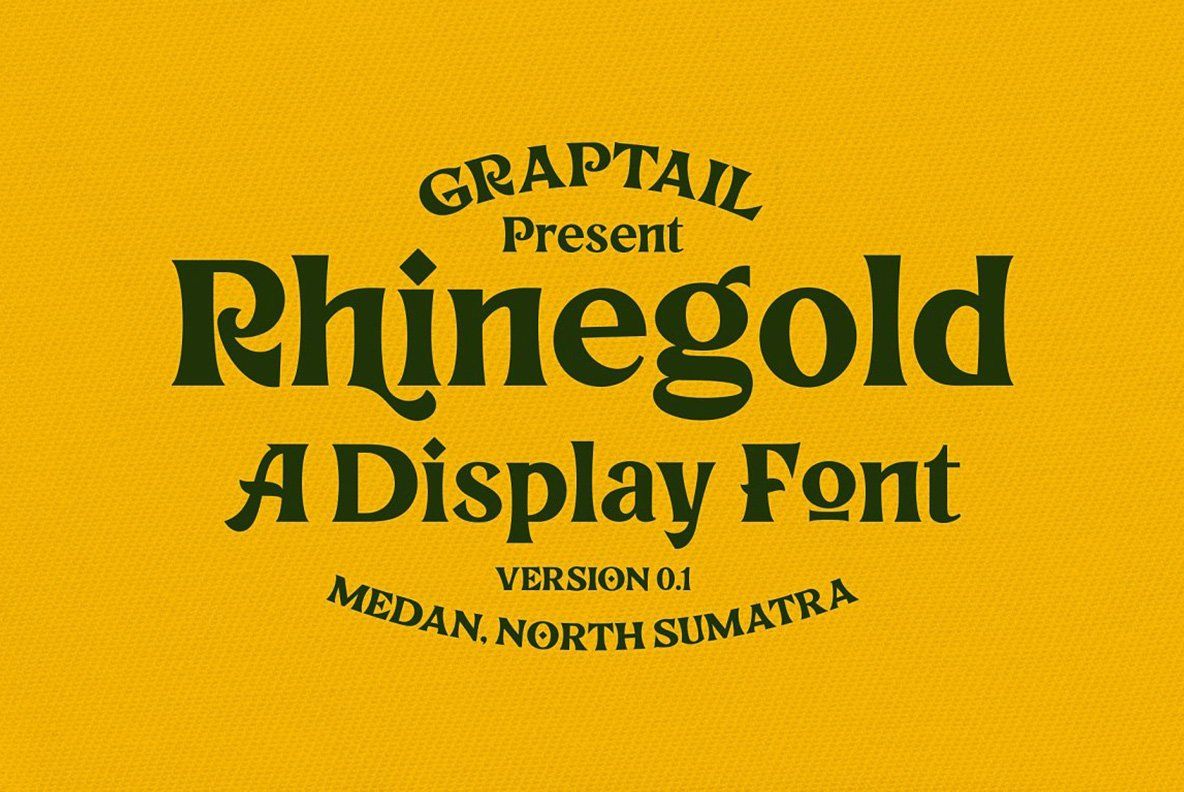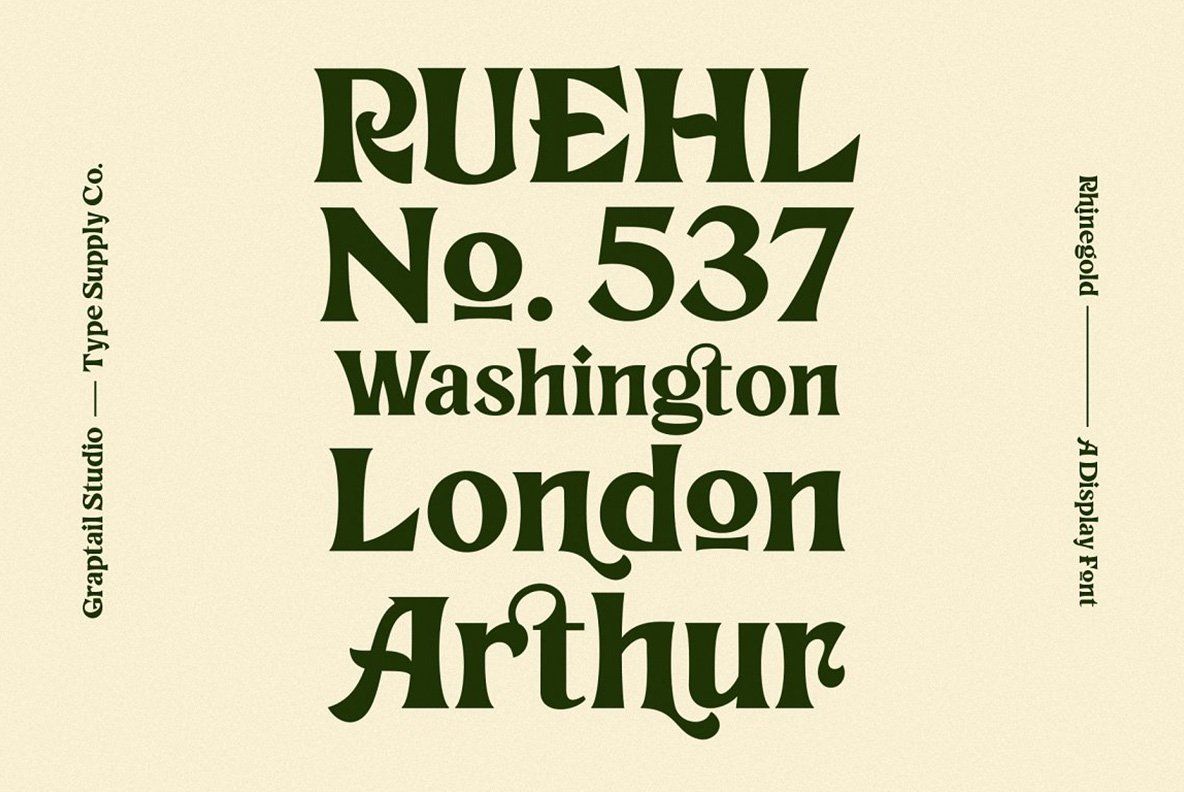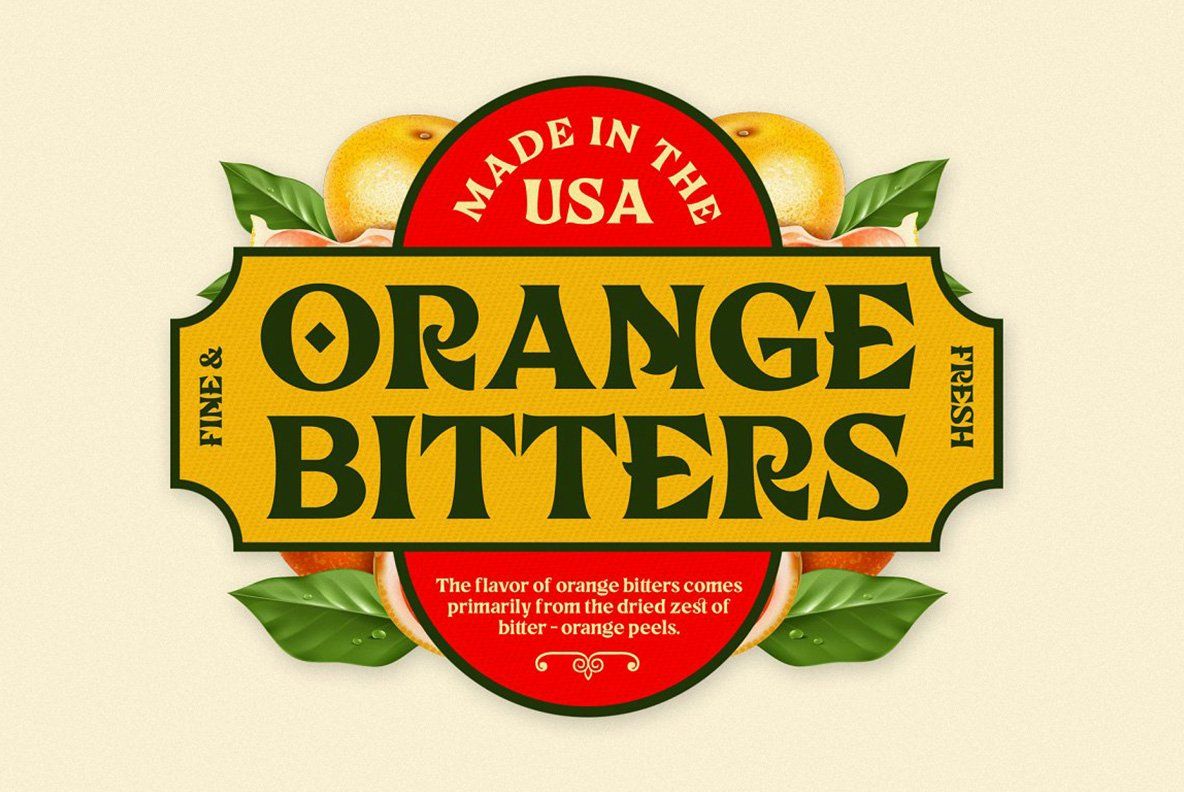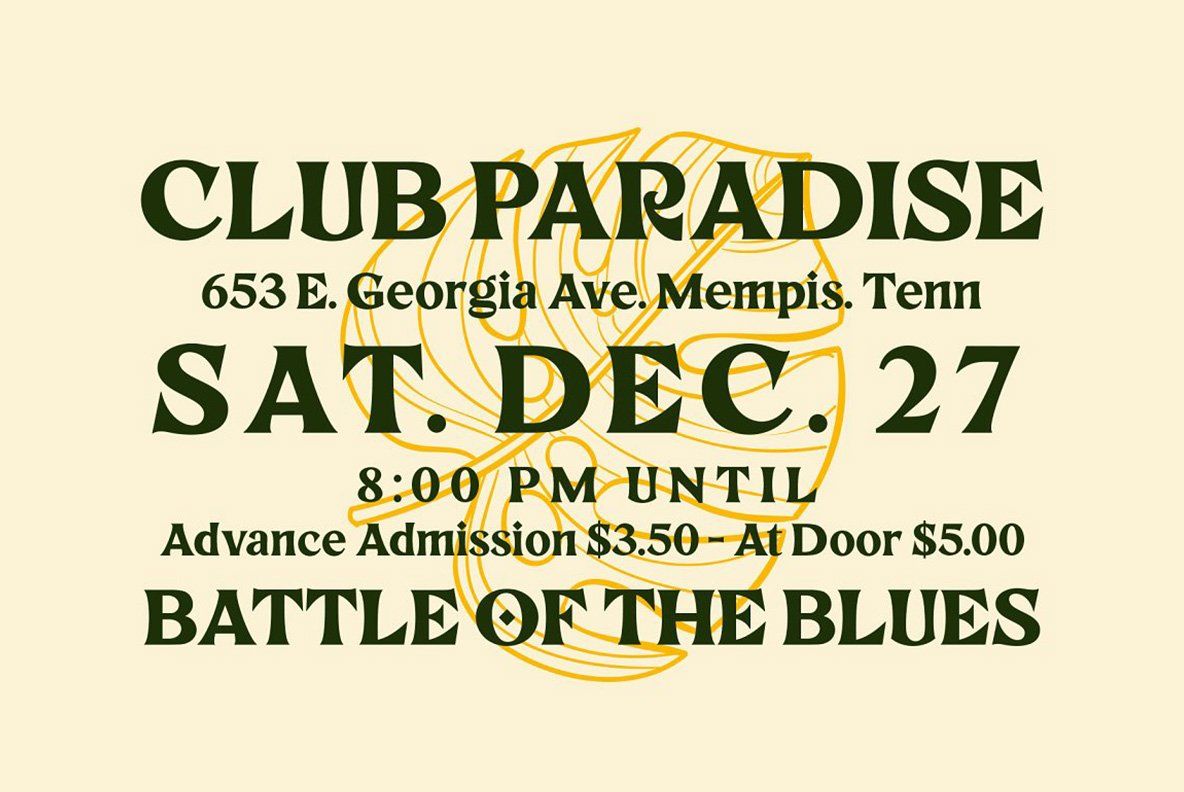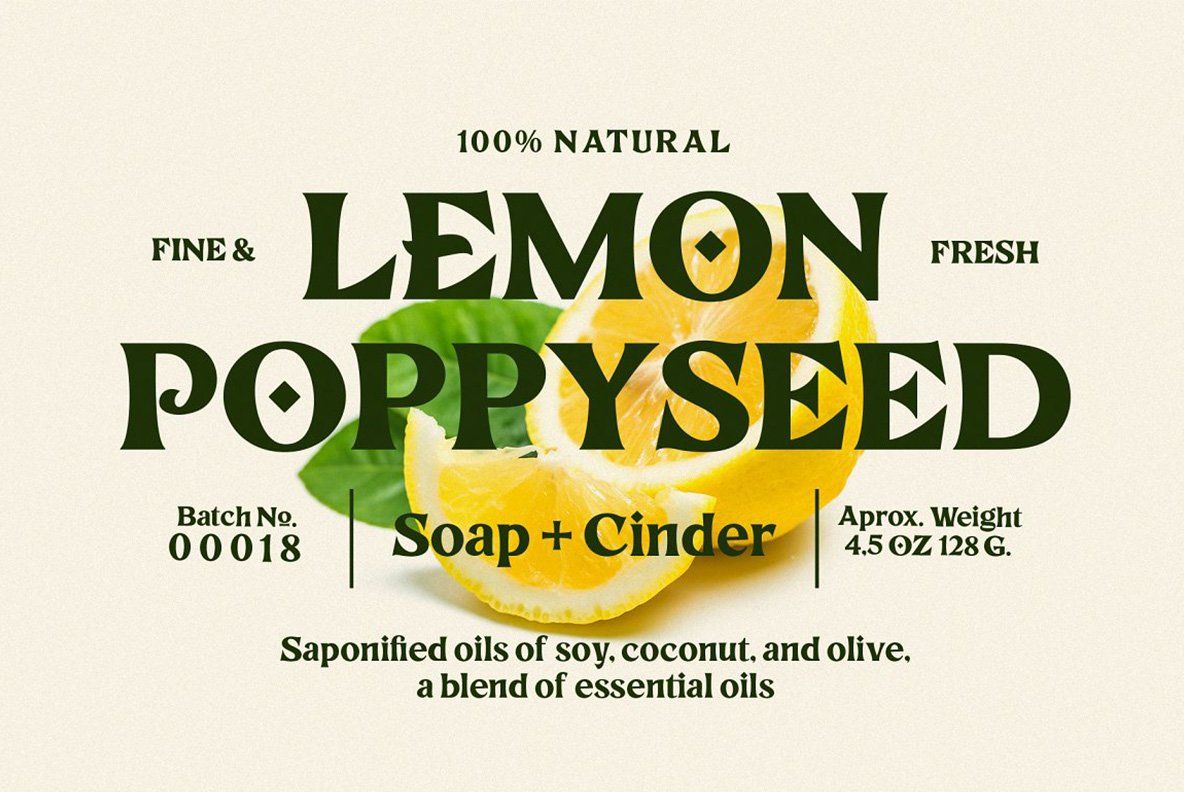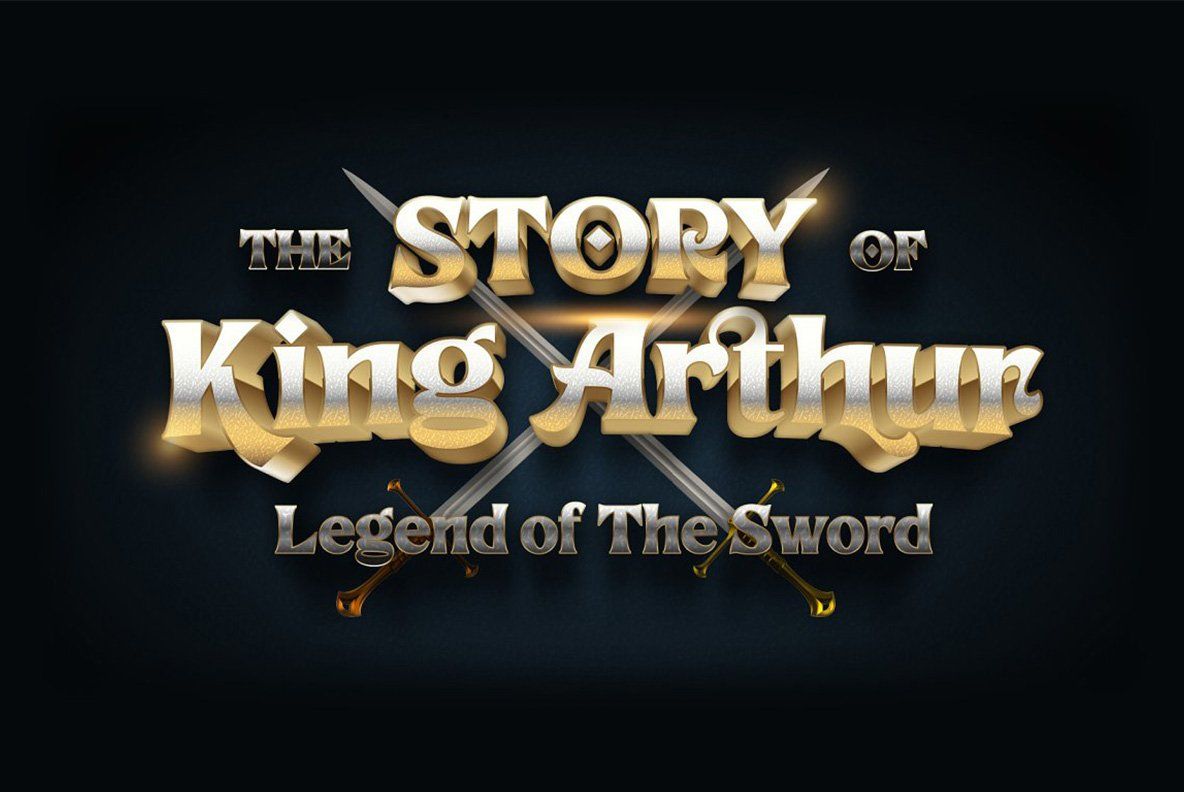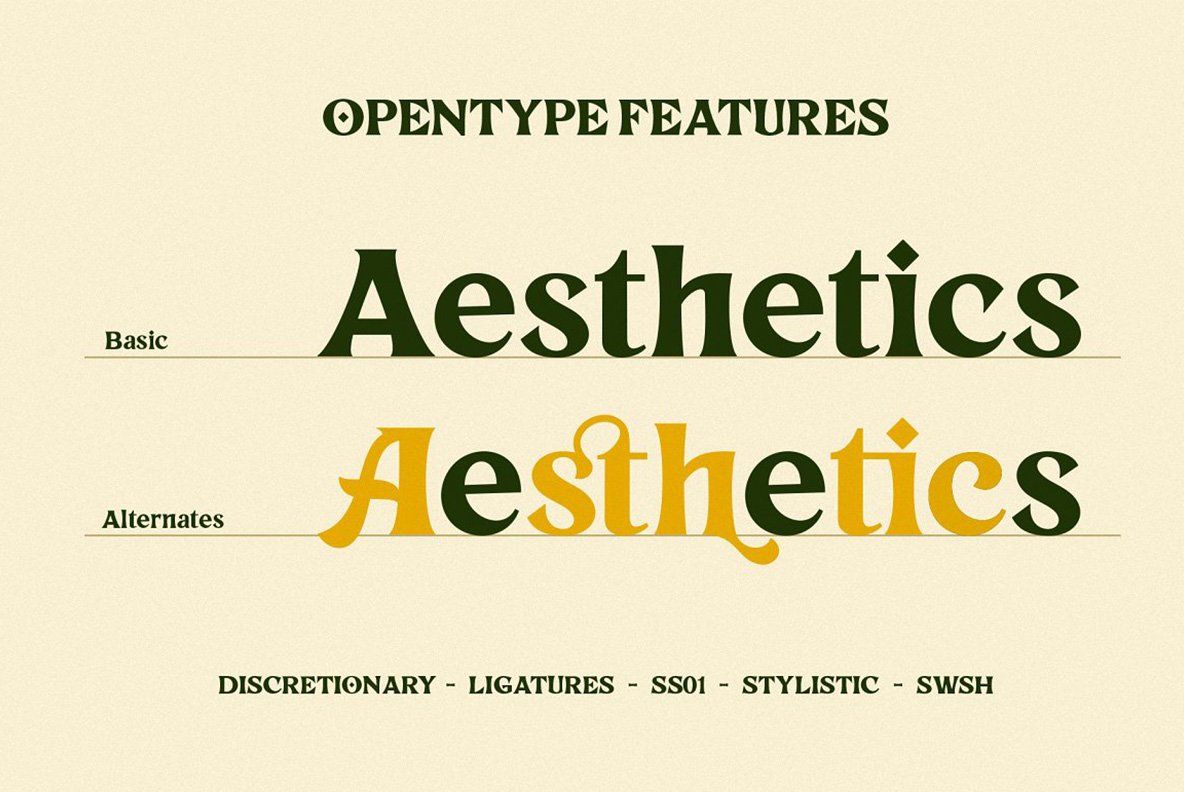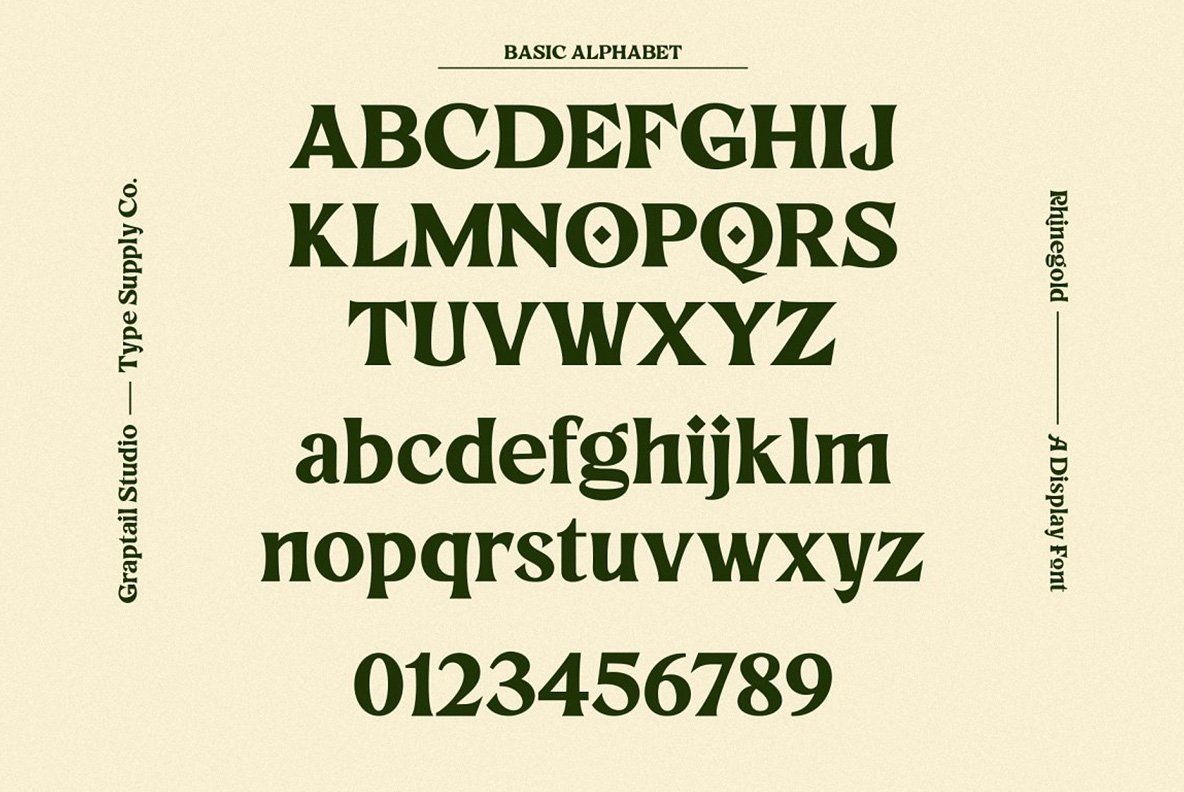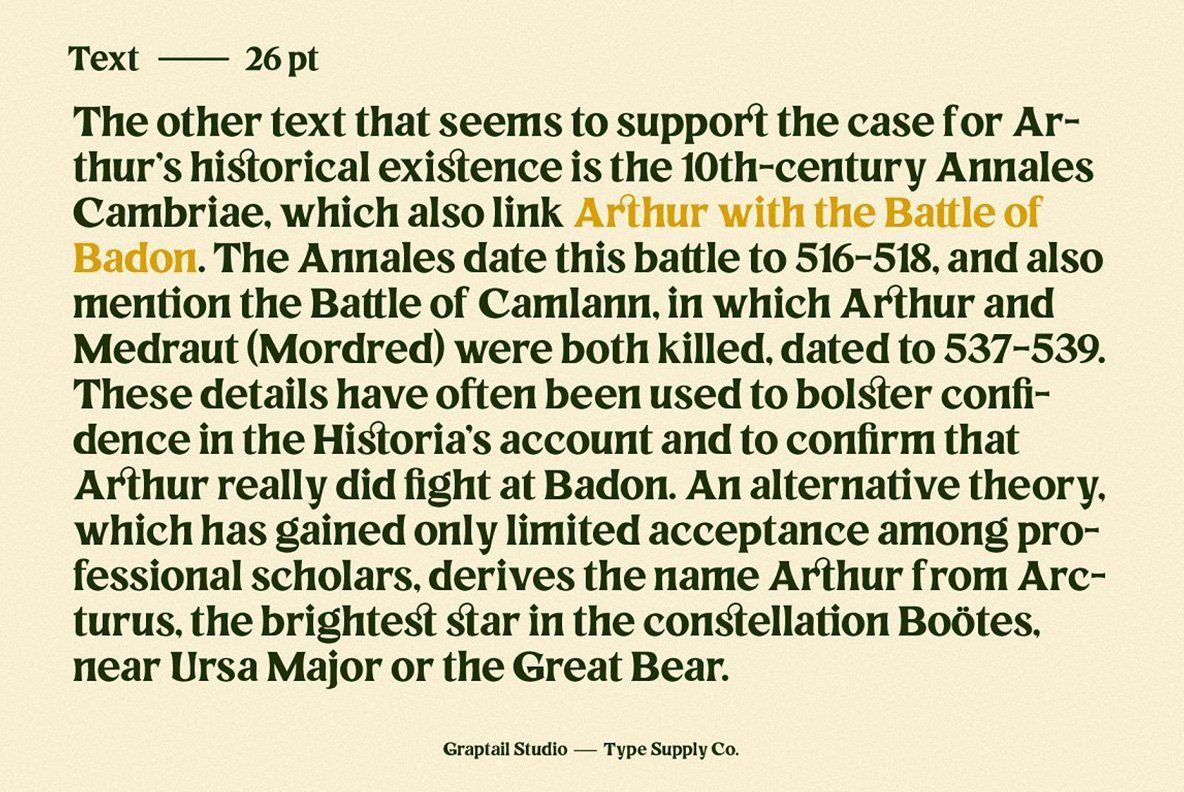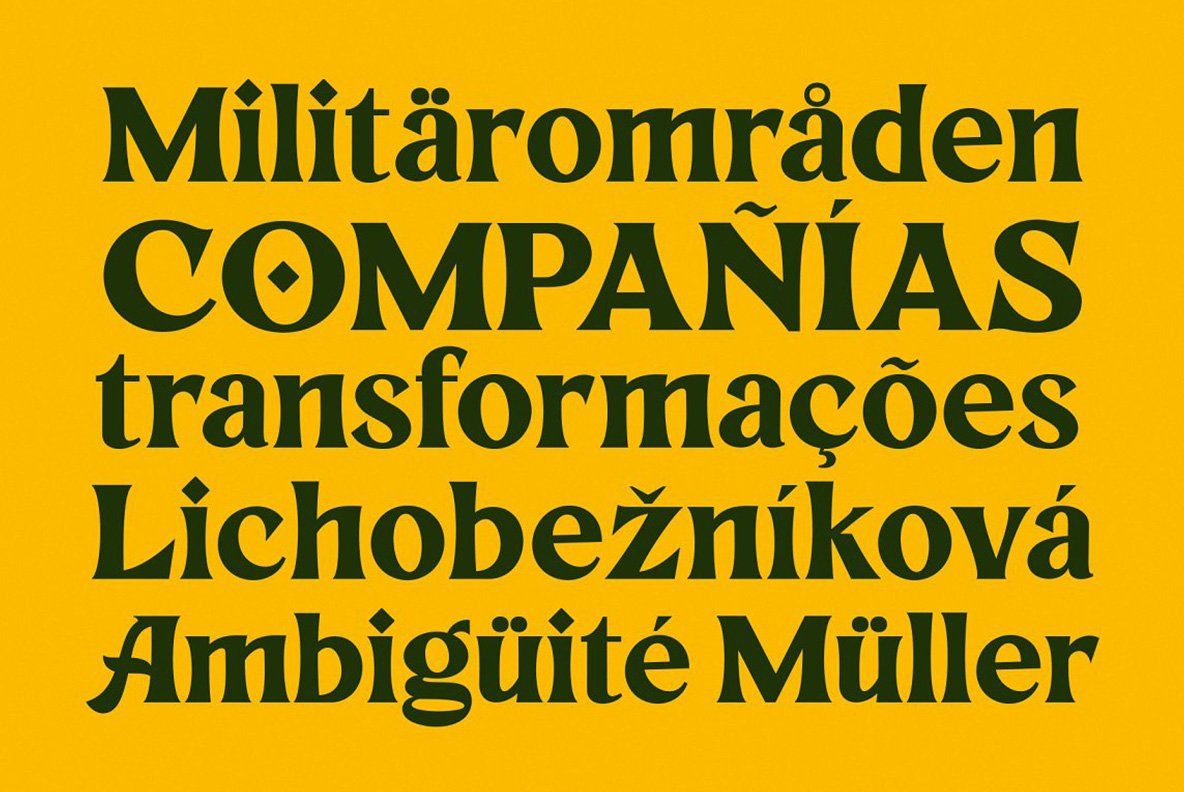
Rhinegold is a font display is made by hand, inspired by classic posters.
Rhinegold comes with uppercase, lowercase, numerals, punctuations and so many variations on each characters include opentype alternates, common ligatures and also additional swash to let you customise your designs. Perfect to use for Logotype, Letterhead, Poster, Apparel Design, Label and etc.